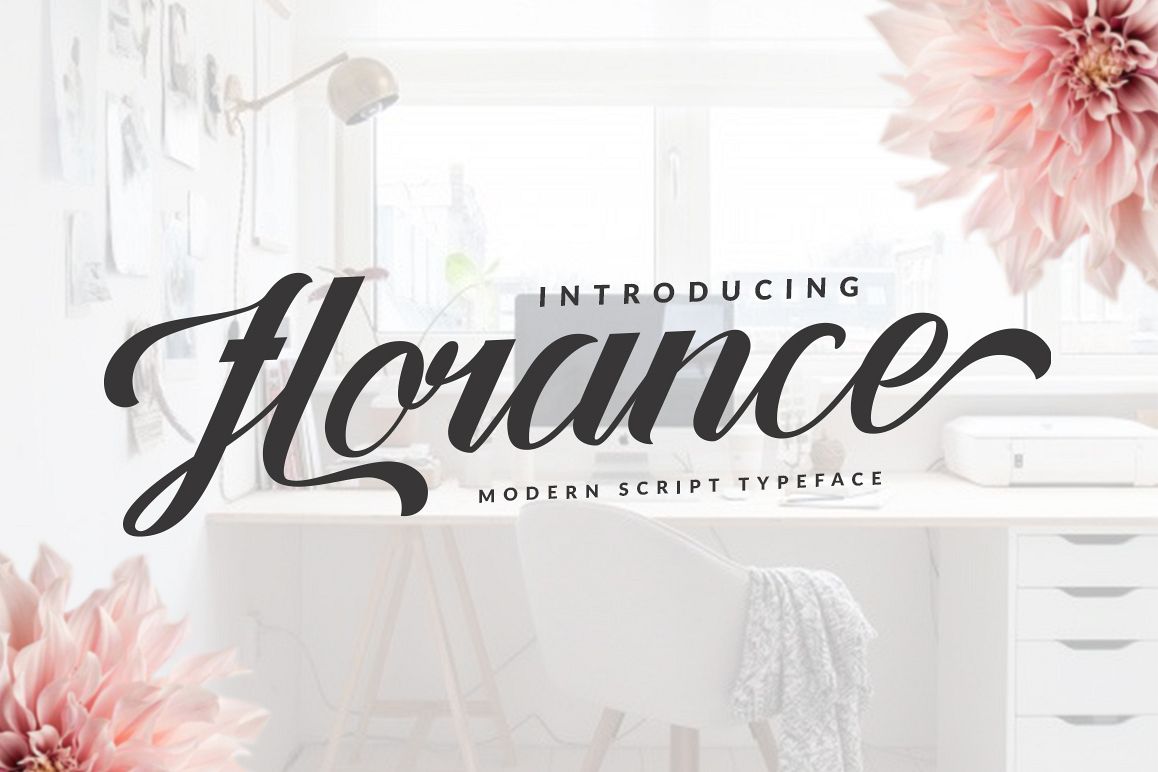
Florance Script
Florance Script, is a modern and clasik, calligraphy typeface, perfect for your next design, such as logos, web design, printed quotes, invitations, cards, product packaging, headers and anything else about your imagination.